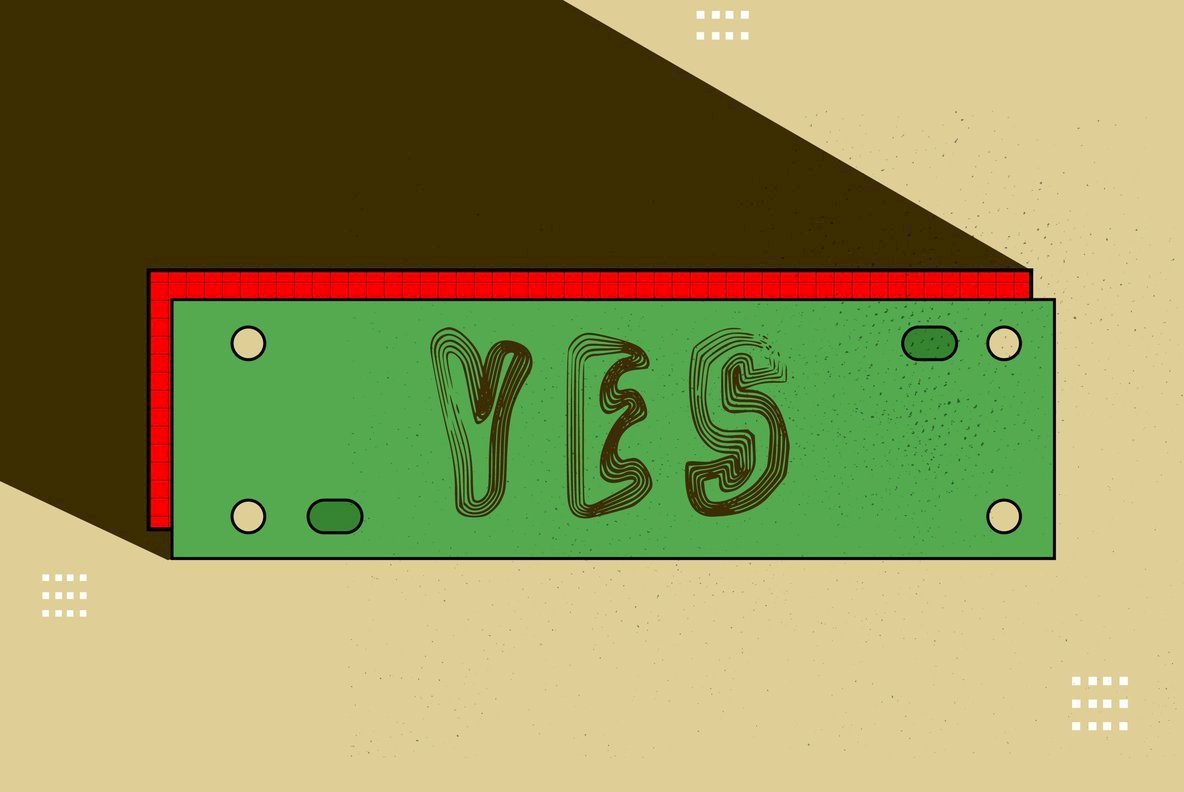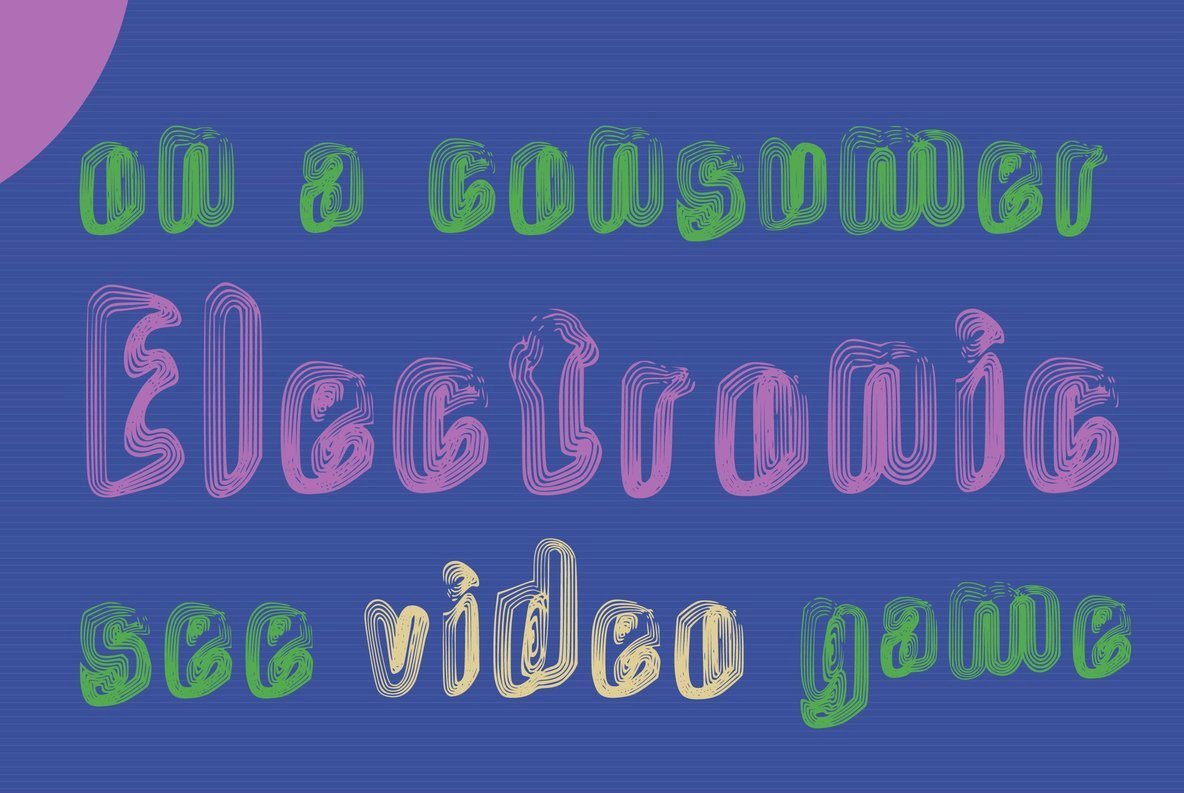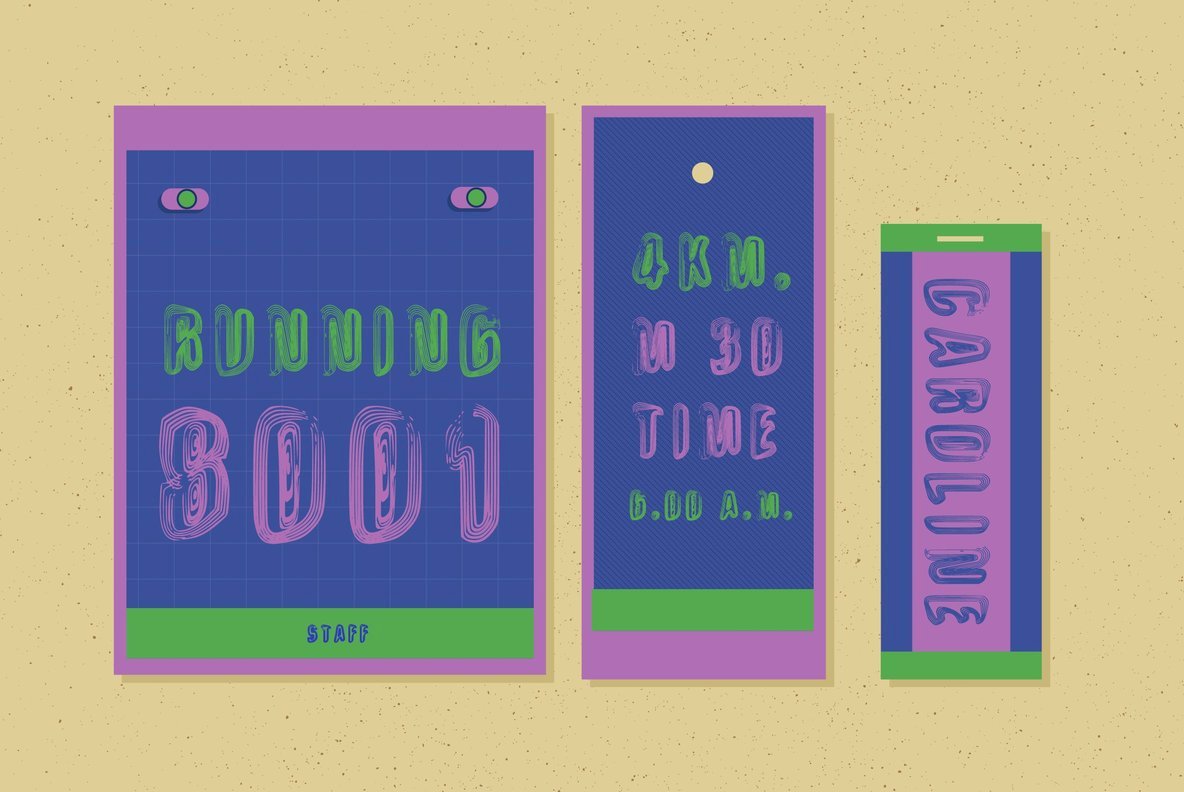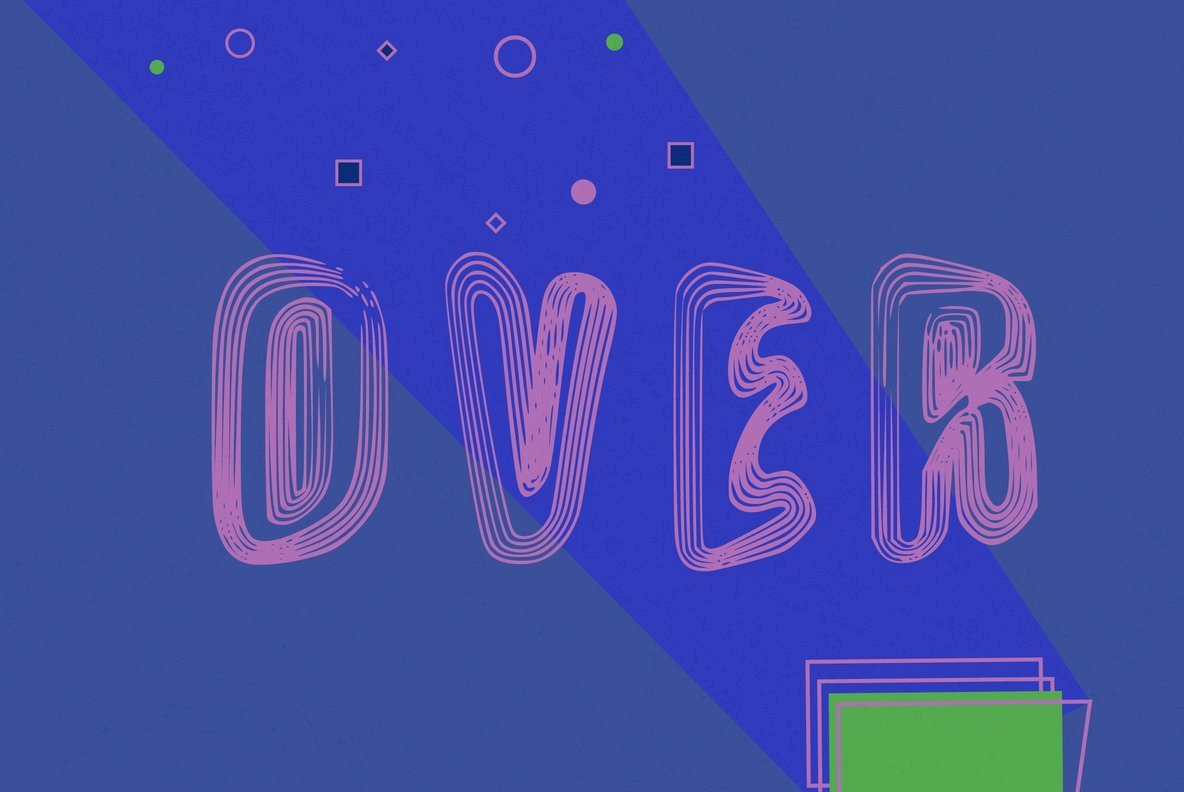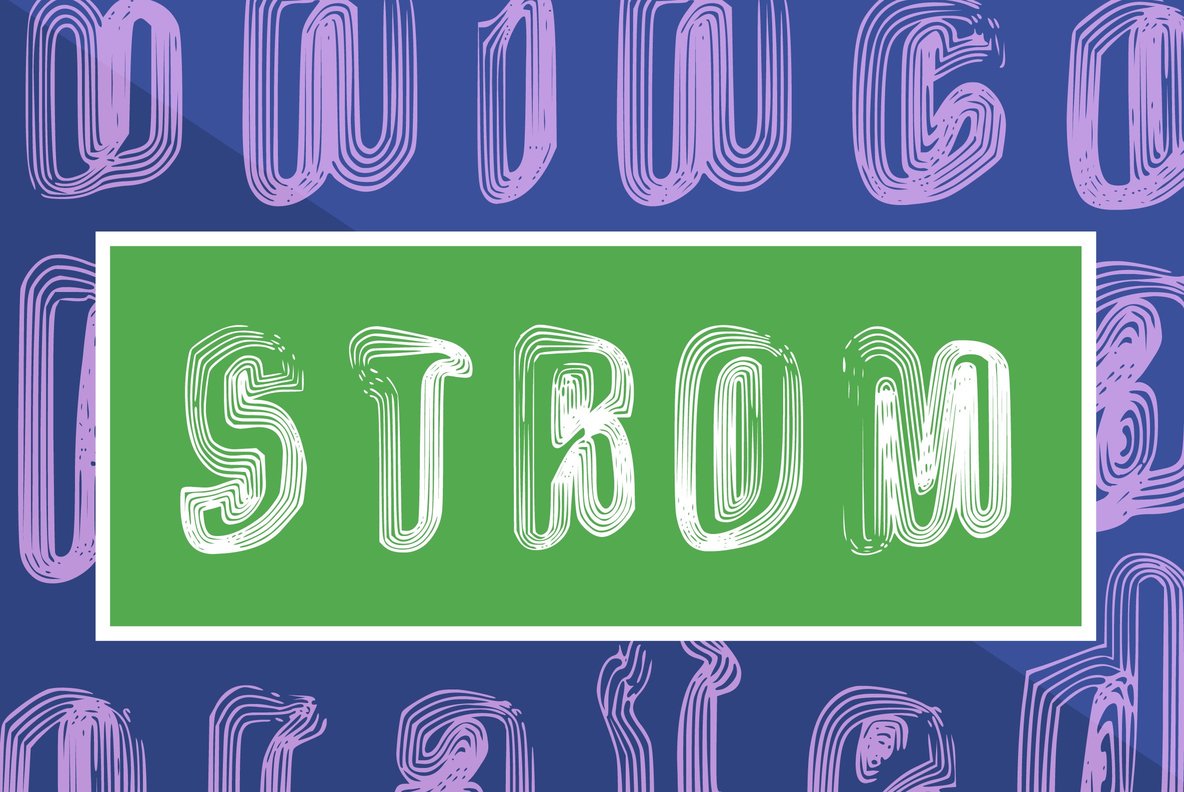
Trippy, funky and psychedelic is what we are feeling when we created this font. Its a little spaced out, its got a feeling of an optical illusions, yes we liked to party in our younger years. For all those who also liked to trip the light fantastic here is a fantastic font. Wow man incorporated a triply, fun and far out feel for all your font needs. Upper, lower, numbers and some symbols are included with this font so bring it along to your next art, craft or design to get the party really started.